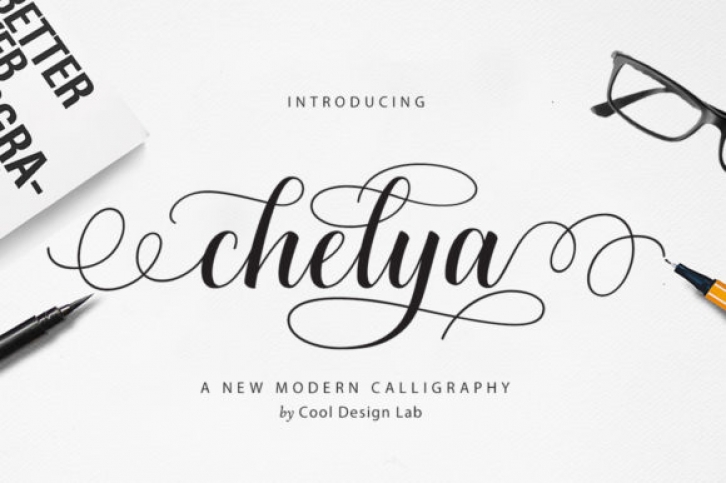
Chelya is a unique handwritten font with an elegant feel. Fall in love with its completely different and timeless style and use it to create spectacular designs!